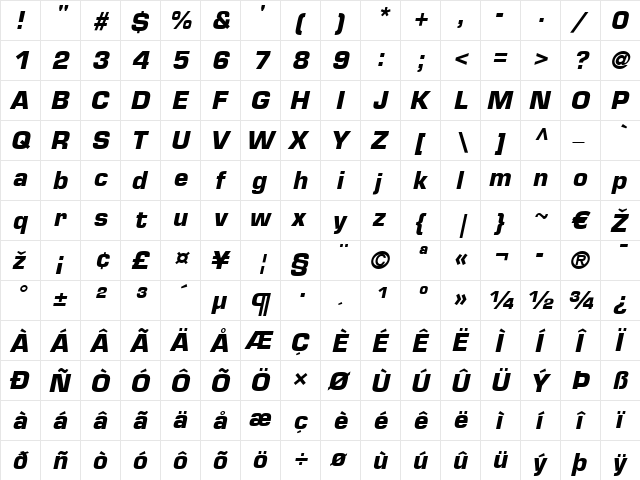
Eurostile LT Bold Italic
Design Context for Eurostile LT Bold Typeface
Eurostile LT Bold offers clean, dependable letterforms without strong stylistic allegiance, making it a practical choice for designers who need flexibility. The slanted form adds forward momentum and visual energy. The heavy weight commands attention and anchors typographic hierarchies.
Pro Tip: Use Eurostile LT Bold for emphasis, pull quotes, and subheadings where its slanted energy can add rhythm to the layout.